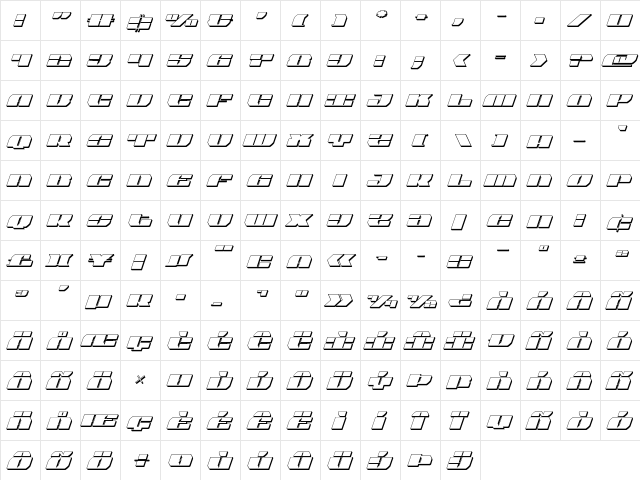
Joy Shark 3D Italic Italic
Design Context for Joy Shark 3D Italic Typeface
Joy Shark 3D Italic is a composed and adaptable typeface that performs quietly and consistently across a wide range of design contexts. Its italic angle brings a sense of urgency and motion to the letterforms.
Pro Tip: Use Joy Shark 3D Italic for emphasis, pull quotes, and subheadings where its slanted energy can add rhythm to the layout.